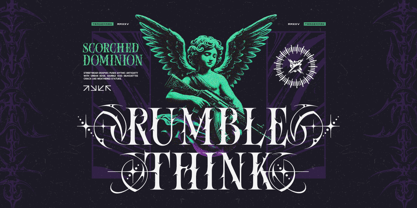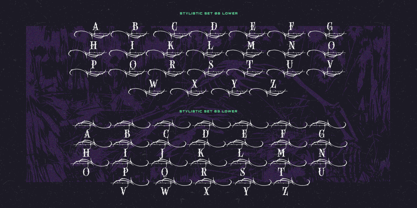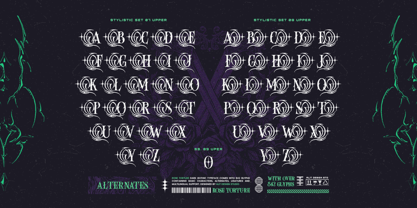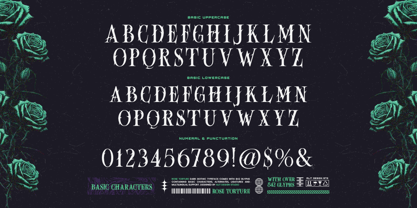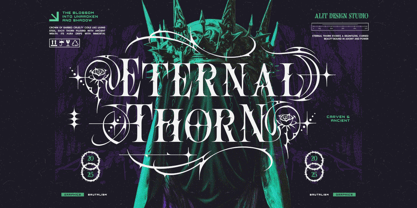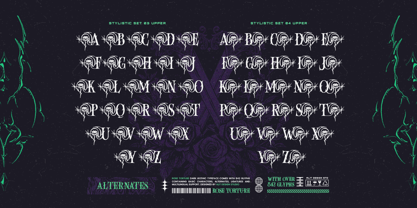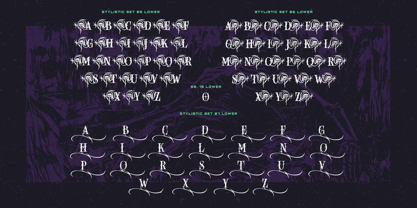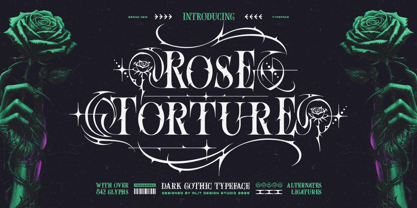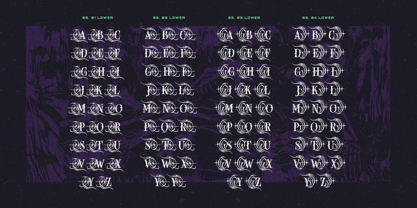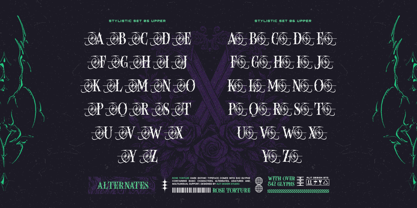
Rose torture
by Alit Design
The Rose torture Font Family was designed by Alit Suarnegara and published by Alit Design. Rose torture contains 1 styles. More about this family
Unleash a torrent of dark, mystical elegance with Rose Torture, a stunning new Dark Gothic Typeface from Alit Design Studio. This font is born from the shadows, masterfully blending the rigid structure of classic gothic lettering with the organic, dangerous beauty of thorns, barbs, and cursed roses. Rose Torture is not just a font; it's a complete design arsenal. The basic character set provides a strong, all-caps (unicase) foundation—sharp, legible, and impactful. But the true power is unleashed through its vast library of alternates. With over 842 glyphs, this typeface allows you to transform your text into a breathtaking work of art. Explore multiple Stylistic Sets (SS01, SS02, SS03, SS04) that encase your letters in intricate, thorny frames and sharp, elegant swashes. Each alternate glyph is meticulously drawn, evoking a sense of "cursed beauty bound in agony and power." Whether you're designing a metal band logo, a brutalist poster, or an arcane book cover, Rose Torture provides the tools to create something truly unique and unforgettable. This font is perfect for: Apparel & Merchandise: Create standout t-shirt graphics, hoodie designs, and brand labels. Music Industry: Design powerful logos for metal, gothic, or dark electronic bands, as well as striking album covers. Branding & Logos: Craft a memorable identity for tattoo studios, streetwear brands, or dark fantasy projects. Editorial & Layout: Perfect for magazine headlines, posters, and book covers that need a dark, mystical, or brutalist aesthetic. Digital Graphics: Add a sharp, artistic edge to your social media graphics and website banners. What's Included: Over 842 Glyphs: A massive library of characters to ensure complete creative freedom. Basic Character Set: A full unicase (all-caps) alphabet, numerals, and all essential punctuation. Extensive Stylistic Alternates: Multiple sets (SS01-SS04) of highly decorative alternate characters. Ligatures: Unique ligatures to add flow and character to your typography. Multilingual Support: Comprehensive language support to reach a global audience. Embrace the darkness and let your designs bleed with agonizing beauty. Add Rose Torture to your toolkit today.
Designers: Alit Suarnegara
Foundry: Alit Design